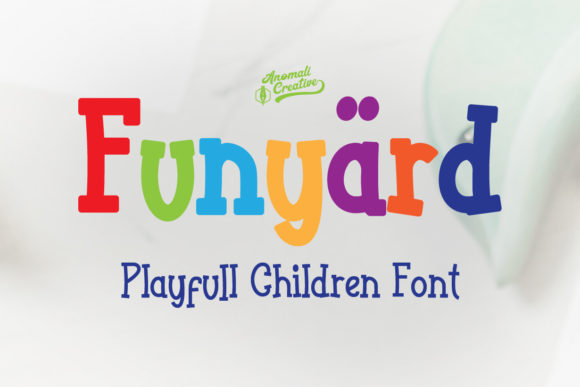
Introducing Funyard Font: A Typographic Symphony for Your Creative Projects!
In a world saturated with monotony, Funyard Font emerges as a captivating slab serif font that exudes playfulness, uniqueness, and authenticity. Crafted by the visionary designer anomali.bisu, Funyard is not merely a font; it's an artistic expression that transforms your designs into visual masterpieces.
Designed with a charmingly playful spirit, Funyard Font possesses a unique ability to capture the essence of childhood wonder and imagination. Its distinctive letterforms dance across the page, evoking a sense of joy and boundless creativity. Whether you're creating whimsical illustrations, enchanting storybooks, or eye-catching branding materials, Funyard Font is your perfect companion.
But Funyard Font isn't just limited to children's themes. Its versatility extends far beyond, making it a font of choice for designers seeking a touch of whimsy and originality. From quirky social media posts to vibrant posters, Funyard Font adds a splash of vibrancy and personality to any project.
Imagine your designs adorned with Funyard Font's playful characters, each one a testament to the font's inherent charm. The carefully crafted curves and unique details breathe life into your creations, captivating your audience and leaving a lasting impression.
Funyard Font: The Perfect Choice for:
* Children's books and illustrations: Bring your stories to life with Funyard Font's enchanting characters and playful spirit, creating a captivating reading experience for young minds.
* Social media posts: Engage your audience with visually striking social media posts that harness the power of Funyard Font's unique personality.
* Branding and marketing materials: Create unforgettable logos, business cards, and marketing materials that exude creativity and leave a lasting impression on potential customers.
* Invitations and greeting cards: Add a touch of whimsy and warmth to your invitations and greeting cards with Funyard Font's playful charm, making every occasion extra special.
Don't let your designs be confined to the ordinary. Embrace the playful spirit of Funyard Font and embark on a creative journey where imagination knows no bounds.